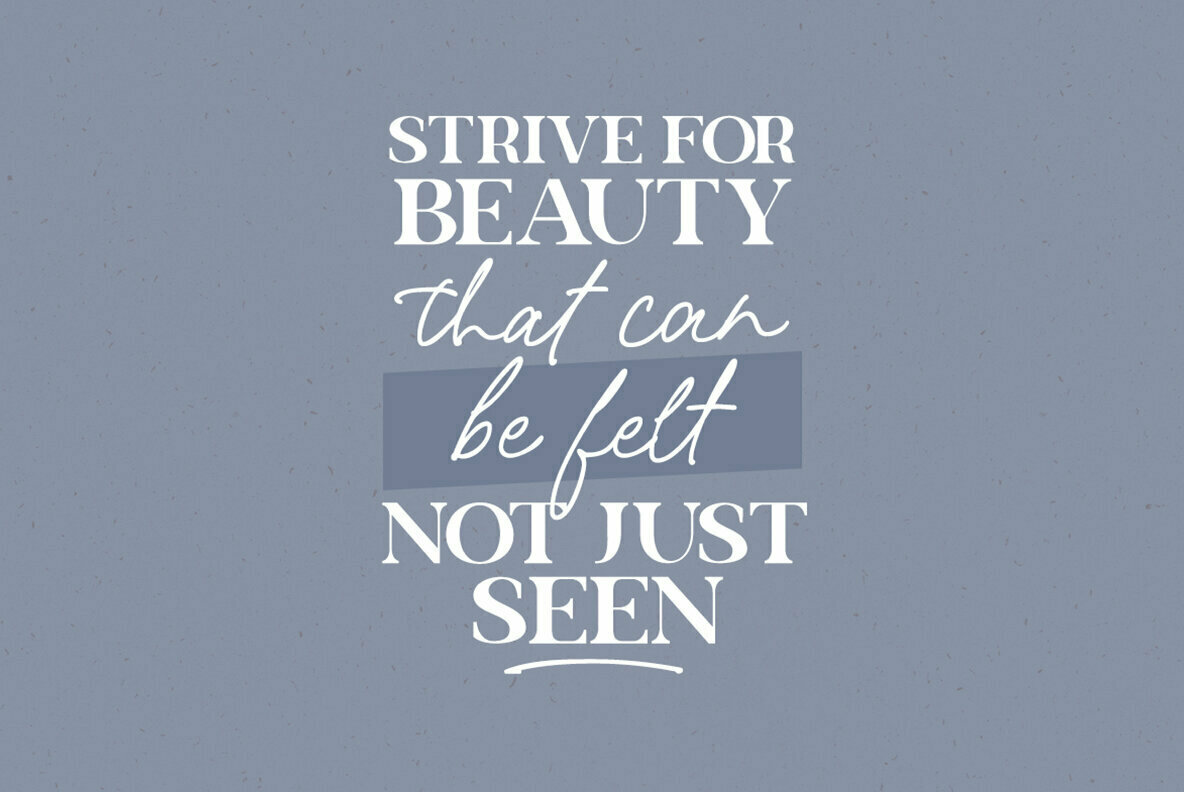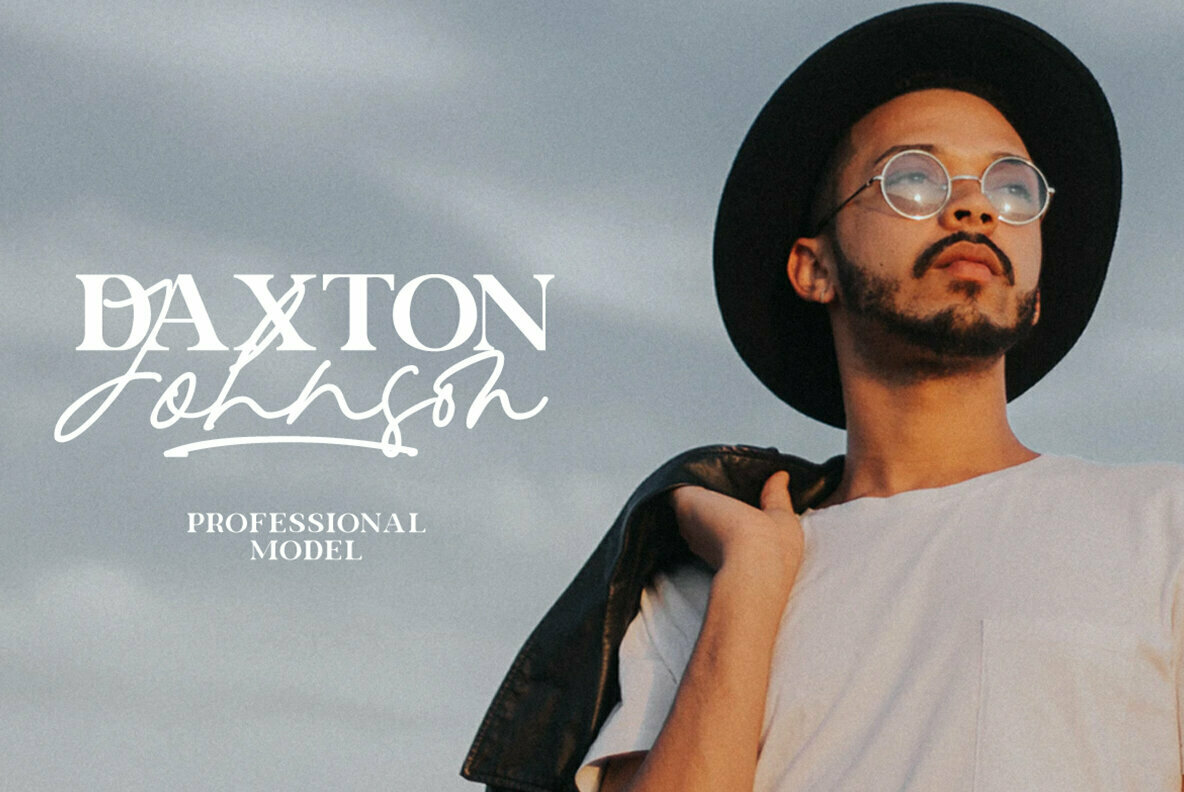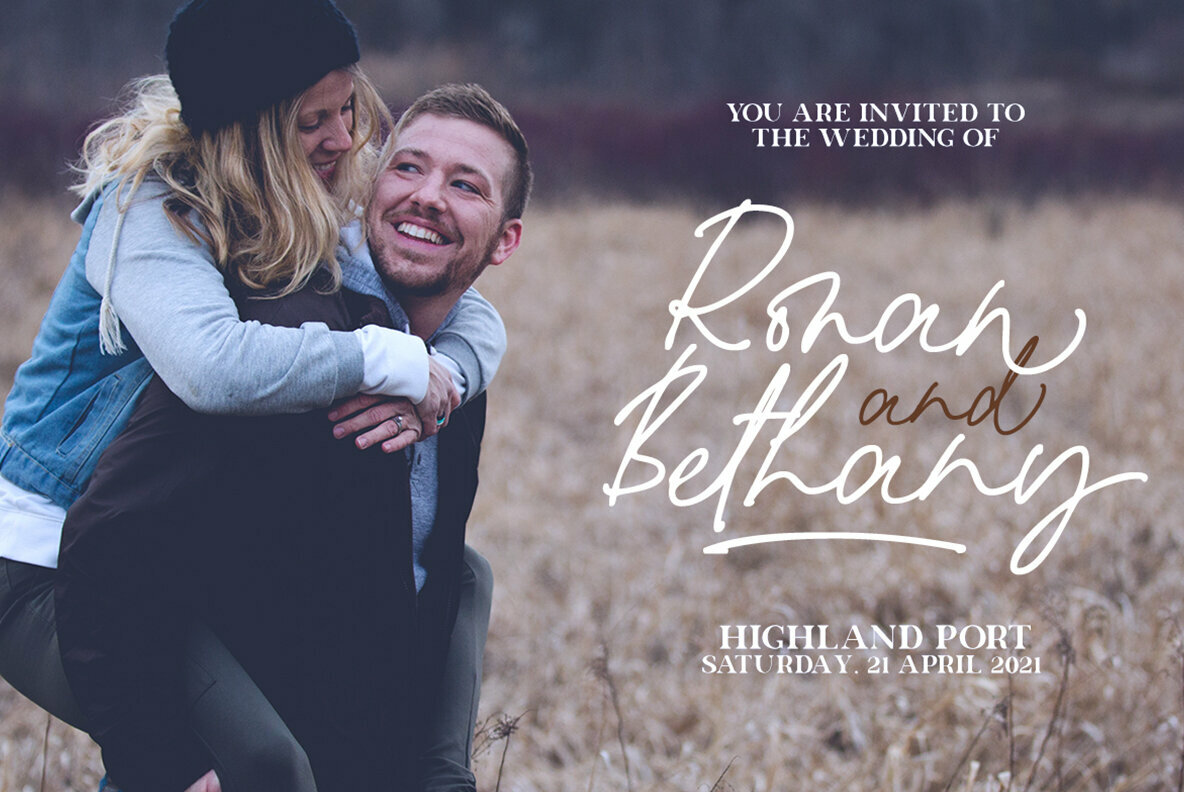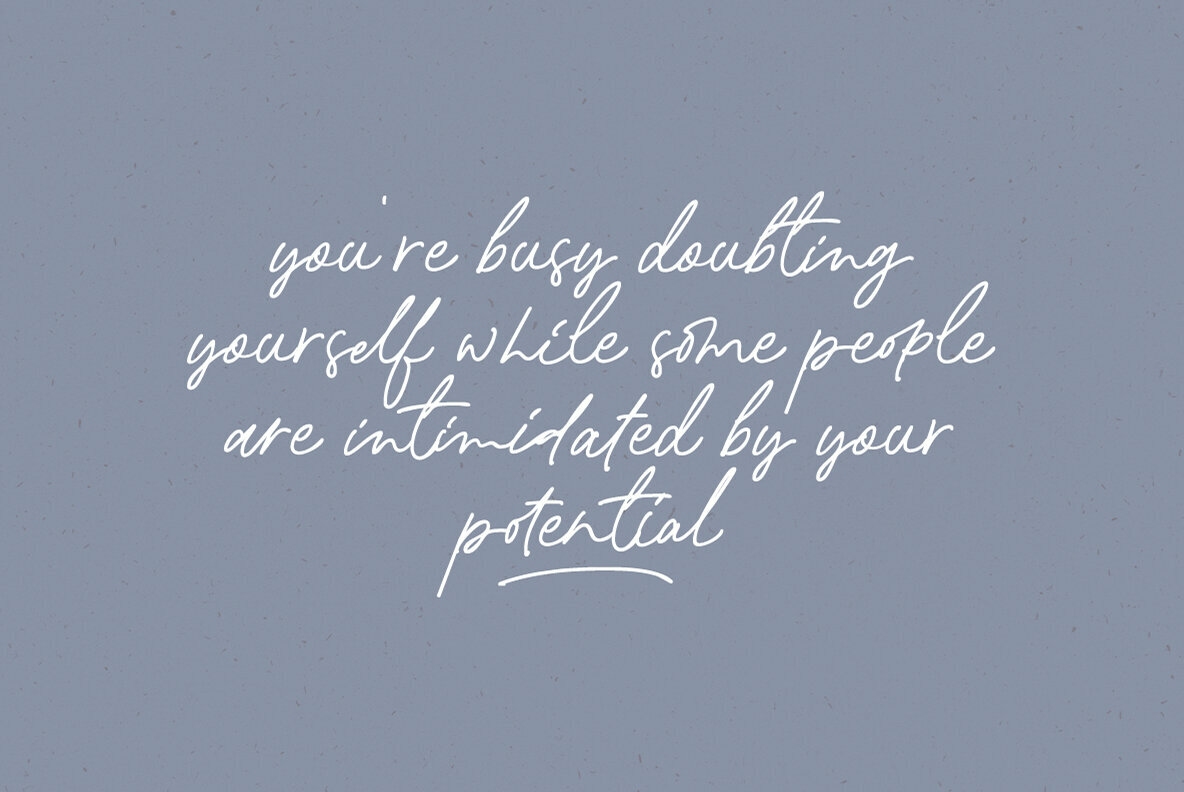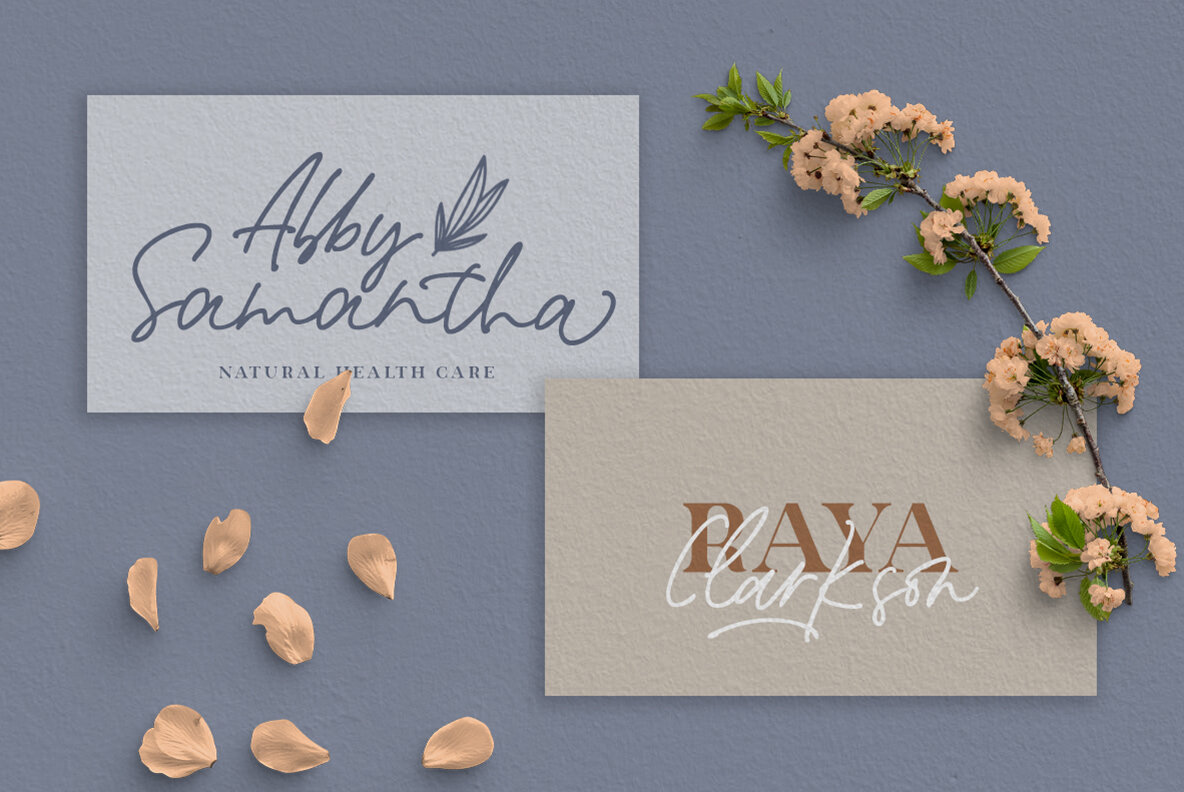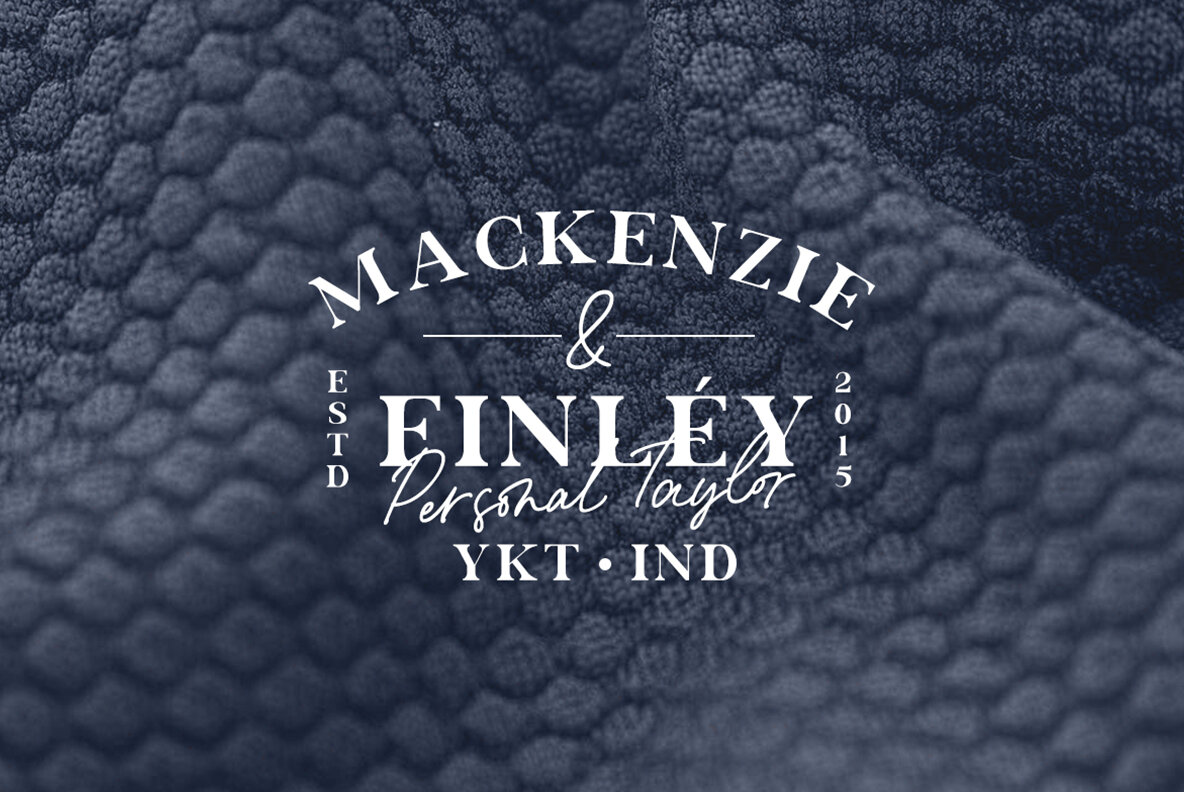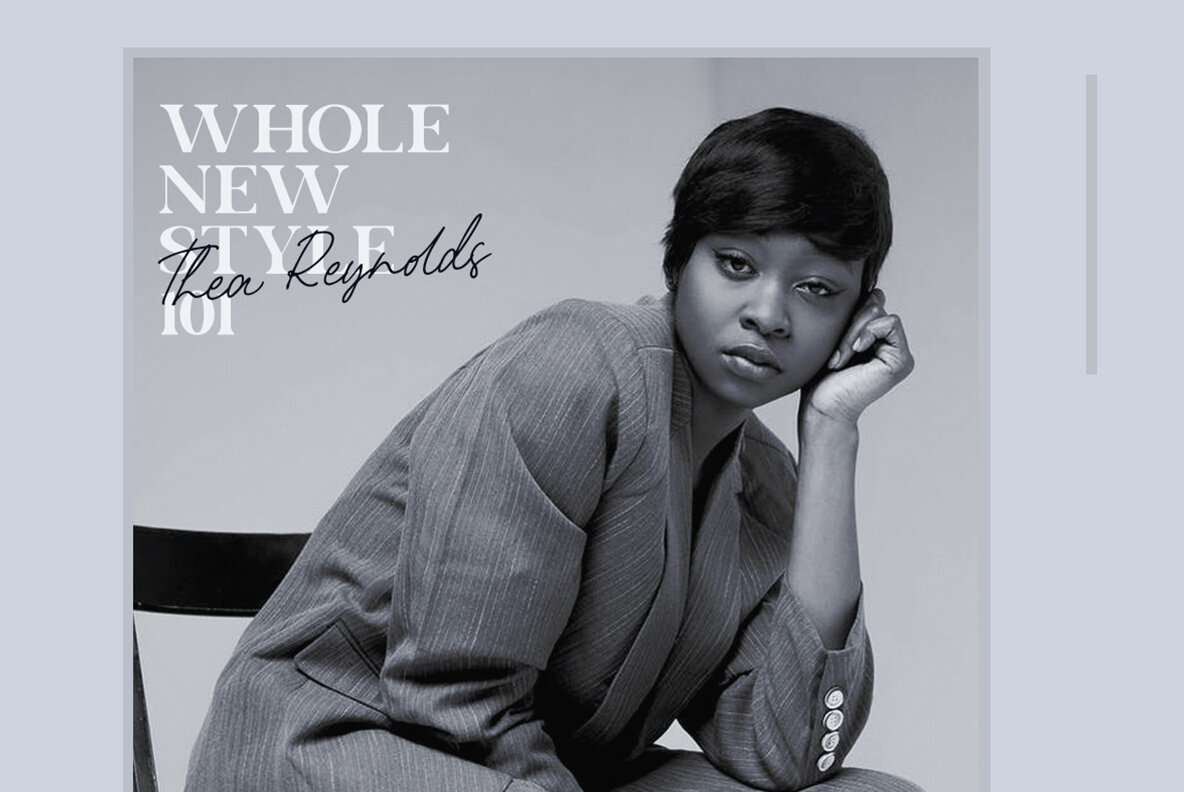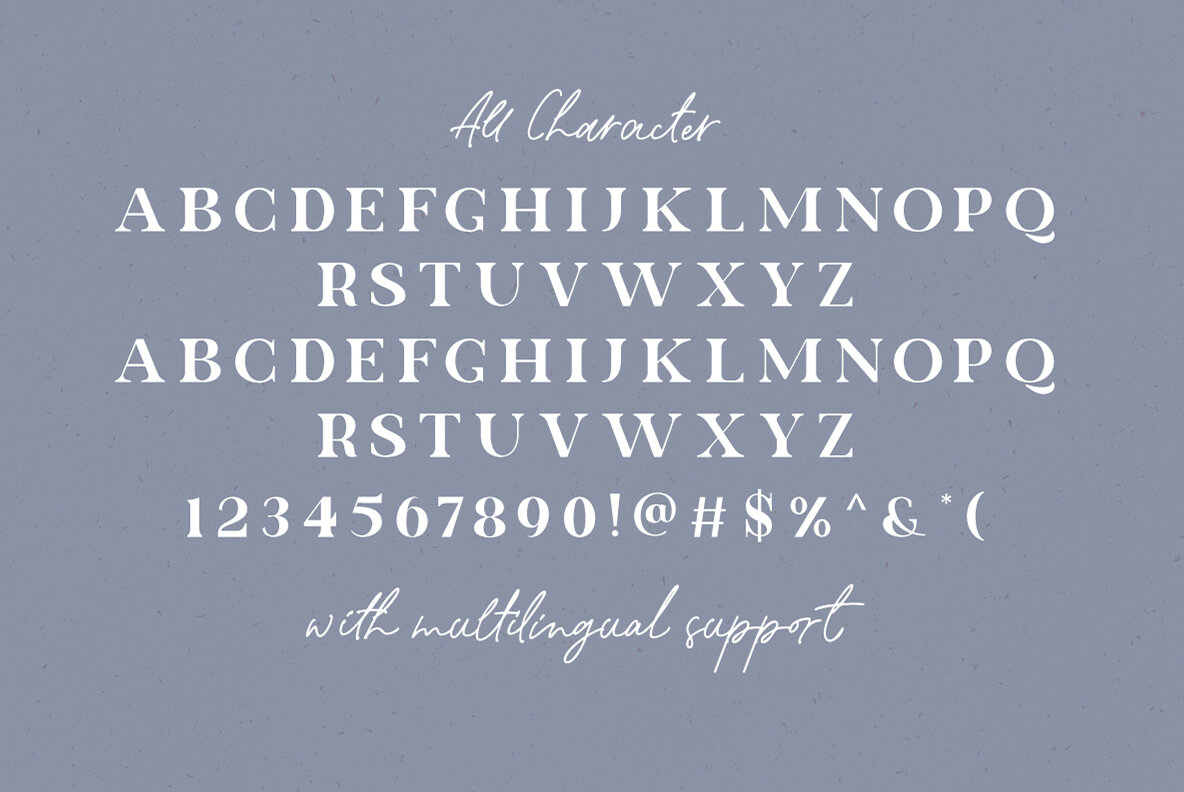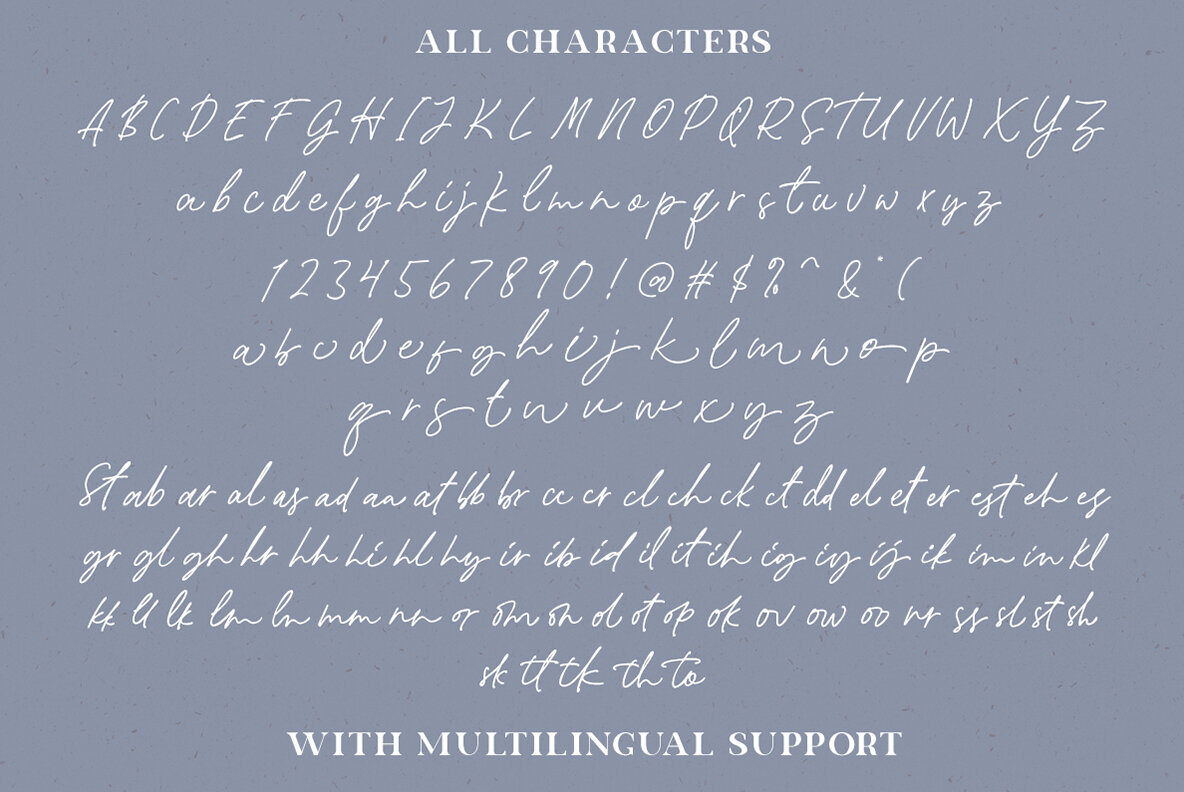
Quentin Sonata Font
Quentin Sonata Script
Quentin Sonata Serif
Quentin Sonata emerges as a sophisticated fusion of modern serif and elegant handwritten script, meticulously designed to complement one another. This pair of fonts is versatile and adaptable, making it an excellent choice for various creative projects, including branding, logo designs, product packaging, headlines, and quotes.Quentin Sonata: A Harmony of Serif and Script Typography